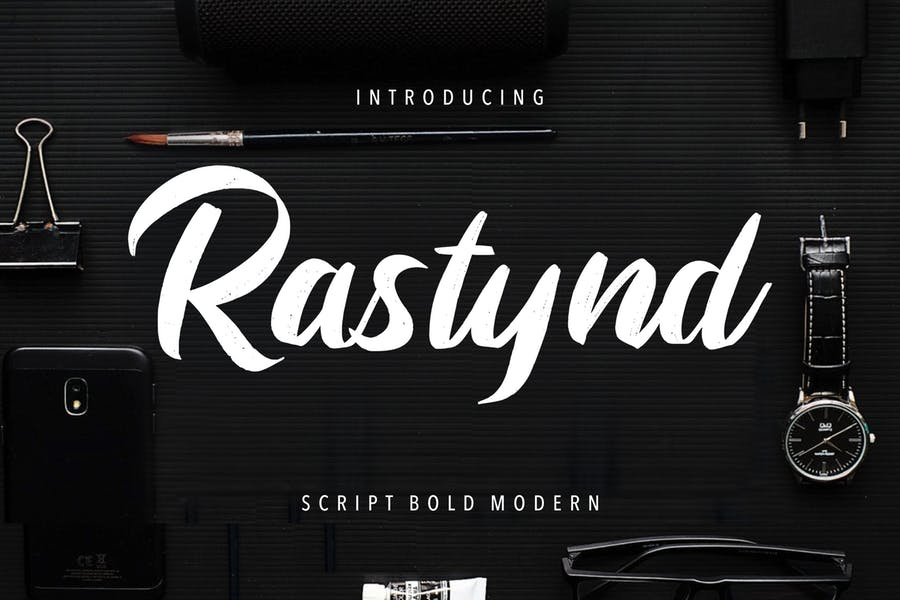
Rastynd Script Bold Modern Font
Rastynd Script Bold Modern Font is perfect for luxury brand logos, high-end fashion campaigns, premium wedding invitations, sophisticated packaging design, upscale restaurant branding, and exclusive event materials. Its commanding presence makes it ideal for jewelry boutiques, luxury hotels, premium cosmetics, designer fashion labels, fine dining establishments, and any project requiring bold elegance with contemporary sophistication and exclusive appeal.
This font is exciting because it seamlessly merges traditional calligraphic artistry with bold contemporary design principles, creating striking visual impact that commands immediate attention while maintaining refined elegance. The powerful yet graceful letterforms demonstrate exceptional craftsmanship and attention to detail, making every word appear as a premium statement piece that elevates brand perception and communicates luxury excellence.
The Rastynd Script Bold Modern Font family typically includes multiple stylistic alternates, decorative swashes, elegant ligatures, and ornamental flourishes that enhance its luxurious personality. This comprehensive collection provides designers with sophisticated tools for creating distinctive brand systems that maintain bold sophistication while offering creative flexibility for various high-end applications and premium market positioning.